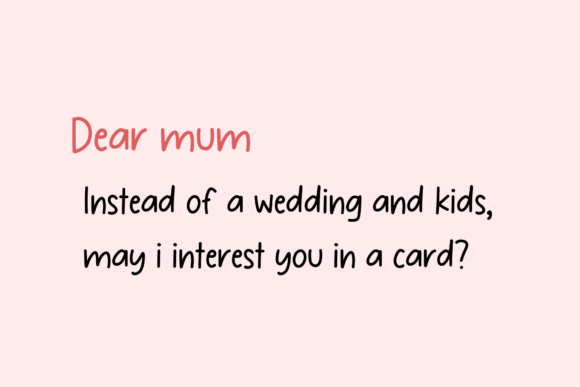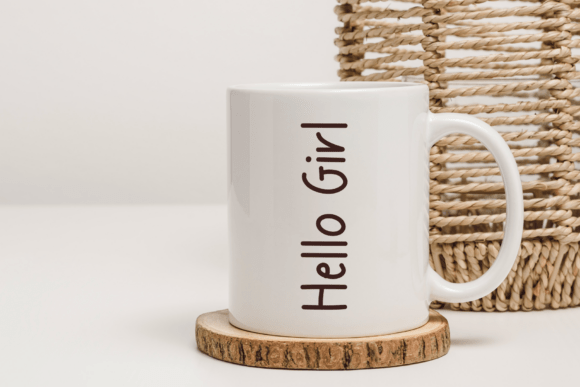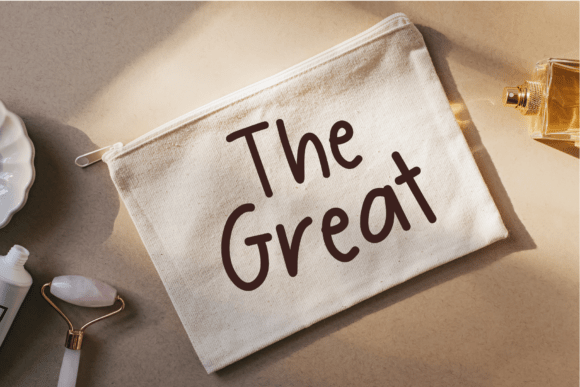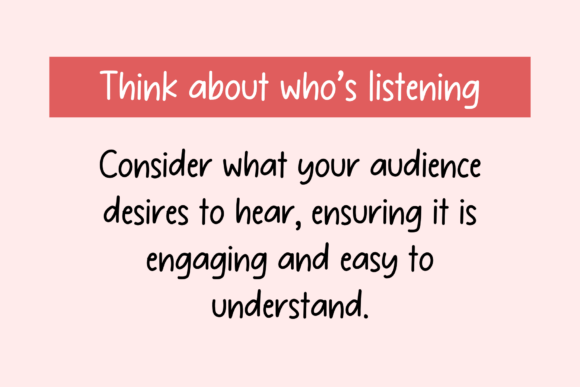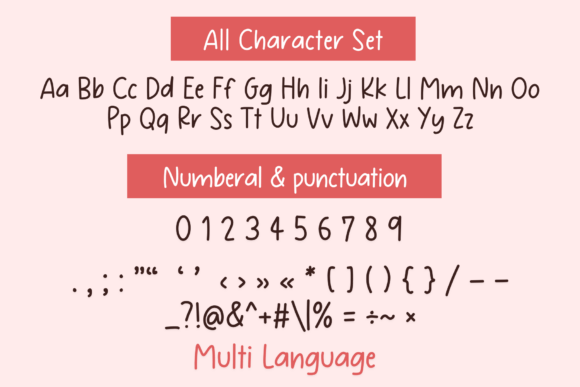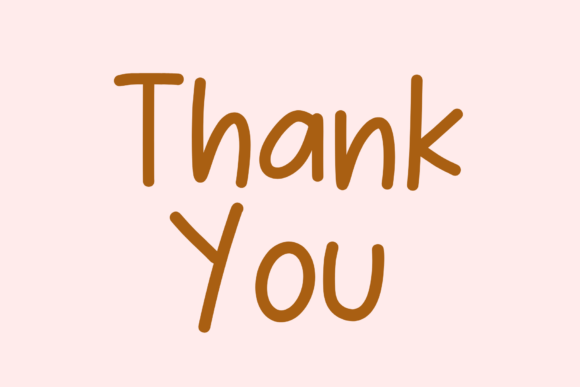
Introduction to Minimal Memo Font
Have you ever found yourself doodling in the margins of a notebook, letting your pen wander across the page as you brainstorm a new idea? That’s exactly the kind of creative moment that the Minimal Memo Font is designed to capture. This beautiful handwritten font is the perfect addition to any project, from blog posts to logos, branding, and even greeting cards.
As a designer, you know how important it is to have a versatile and high-quality design resource at your fingertips. That’s why we’re excited to share the Minimal Memo Font with you. With its transparent background and free download option, you can easily add this font to your favorite projects and enjoy the results. Whether you’re working on a creative project or just need a unique touch for your next design, the Minimal Memo Font is sure to deliver.
Key Features of Minimal Memo Font
- High-quality, elegant design perfect for creative projects, offering a clean and minimalist aesthetic.
- Features a transparent background, allowing for seamless integration with any design element or background image.
- Includes multiple font weights and styles, providing flexibility for designers to customize their creative projects.
- Designed with a high resolution (up to 1024 x 1024 pixels) for crisp and clear display on various devices and screens.
- Perfect for use in digital design, print media, and web development, making it a versatile design resource.
Honest Review: Minimal Memo Font
I recently stumbled upon the Minimal Memo Font and I’m excited to share my honest thoughts on this design resource. As a designer, I’m always on the lookout for high-quality fonts that can elevate my creative projects. The Minimal Memo Font delivers on that front.
- ✨ High-quality font with crisp and clean lines, perfect for creating a professional and modern look.
- ✨ Transparent background, making it easy to use on various design backgrounds.
- ✨ Great for use in body text, headings, and even logos.
- ⚠️ Limited font weights and styles, which might not be ideal for designers who like to have more options.
- ⚠️ Not suitable for use in bold or dramatic designs, as it’s more suited for minimalist and modern projects.
Overall, I’m impressed with the Minimal Memo Font. It’s a great addition to any designer’s toolkit, especially for those working on modern and minimalist projects. With its high-quality design and transparent background, it’s a great choice for designers looking for a reliable and free design resource.
Minimal Memo Font
For the best results, use Minimal Memo Font with a free download background image or a high-quality image with a transparent background. This design resource is ideal for creative projects, such as blog posts, social media graphics, or flyers.
Alternatives to Minimal Memo Font
Montserrat is a modern sans-serif font ideal for creative projects that require a high-quality, clean design. Its versatility makes it suitable for various design elements, from headings to body text. It’s available for free download and offers a transparent background, making it a great alternative to Minimal Memo Font. When to use: Use Montserrat for digital projects, websites, and mobile apps that require a sleek and modern look.
Comparison: Montserrat is more geometric and modern compared to Minimal Memo Font, which is more rounded and minimalist. Montserrat is also more versatile and can be used for a wide range of design elements, while Minimal Memo Font is more suited for body text.
Open Sans is a popular sans-serif font that offers a high-quality, clean design. It’s perfect for creative projects that require a free download and a transparent background. When to use: Use Open Sans for digital projects, websites, and mobile apps that require a clean and modern look. It’s also suitable for print materials, such as brochures and business cards.